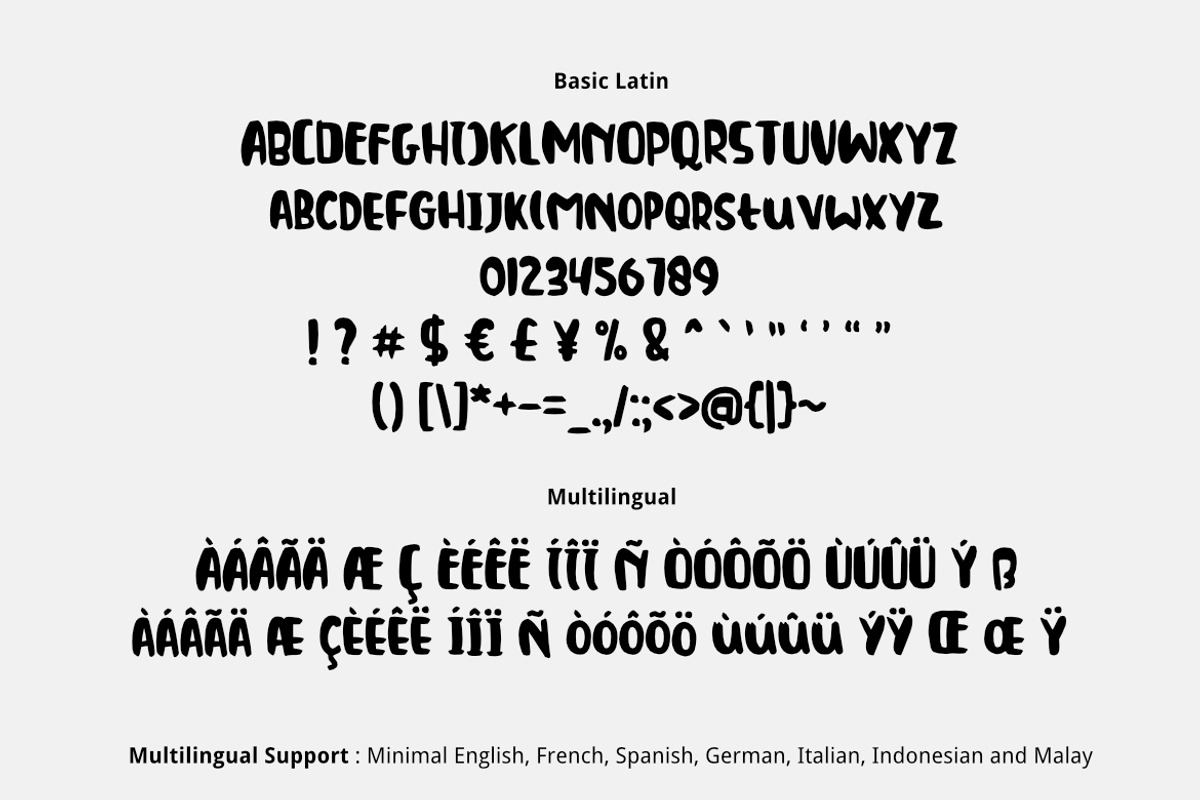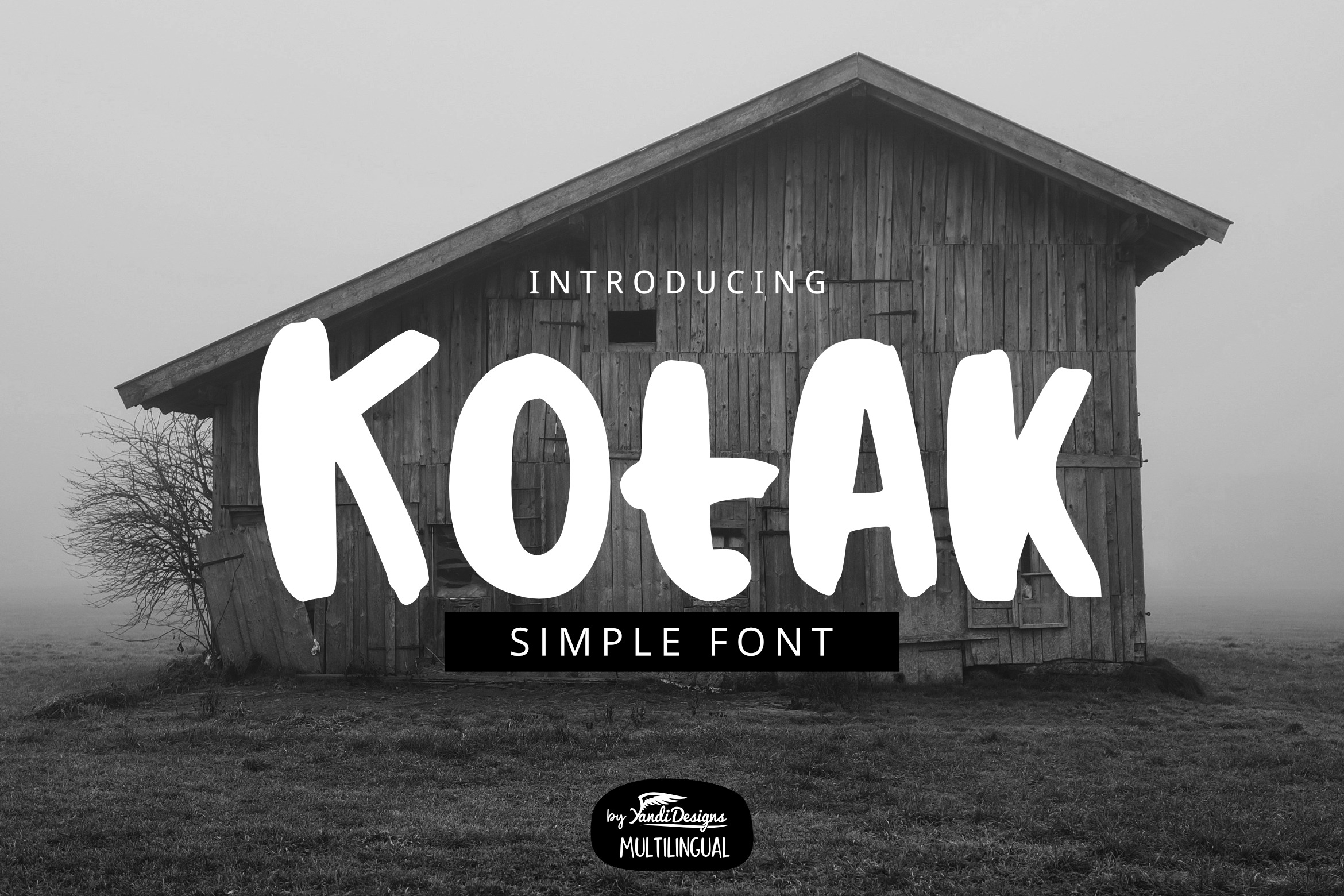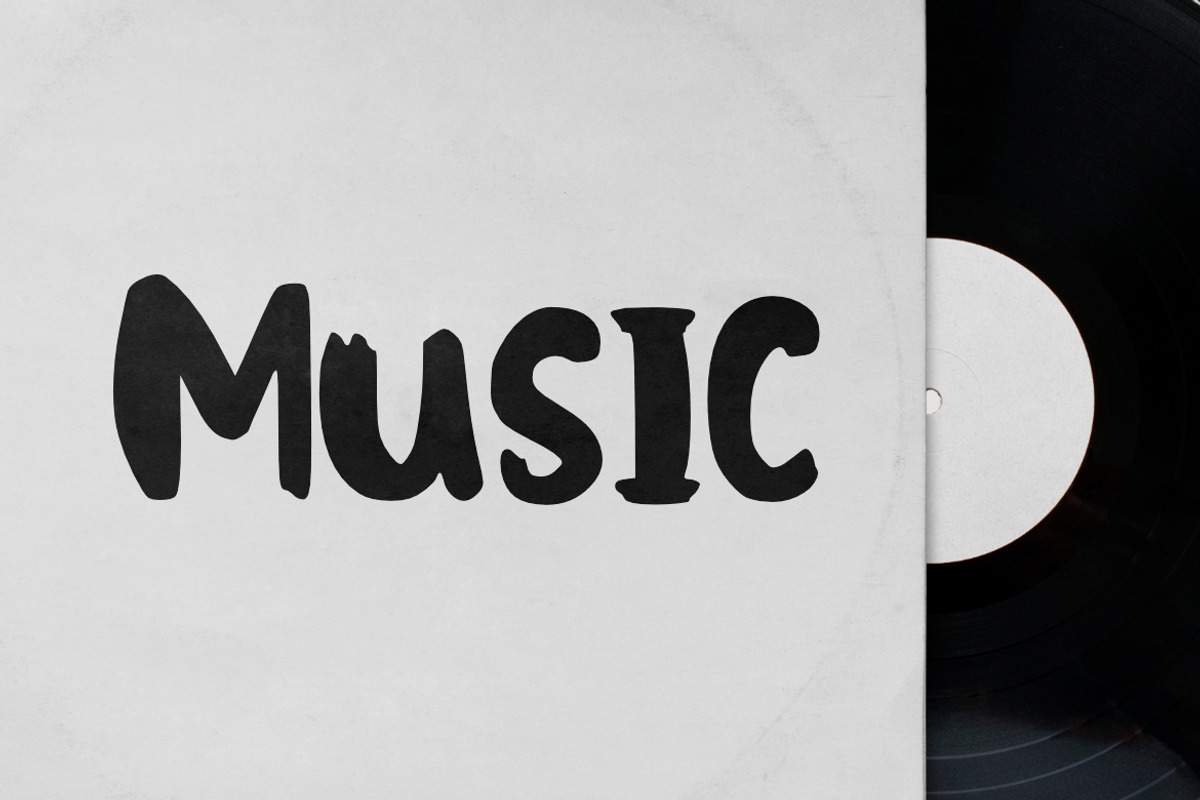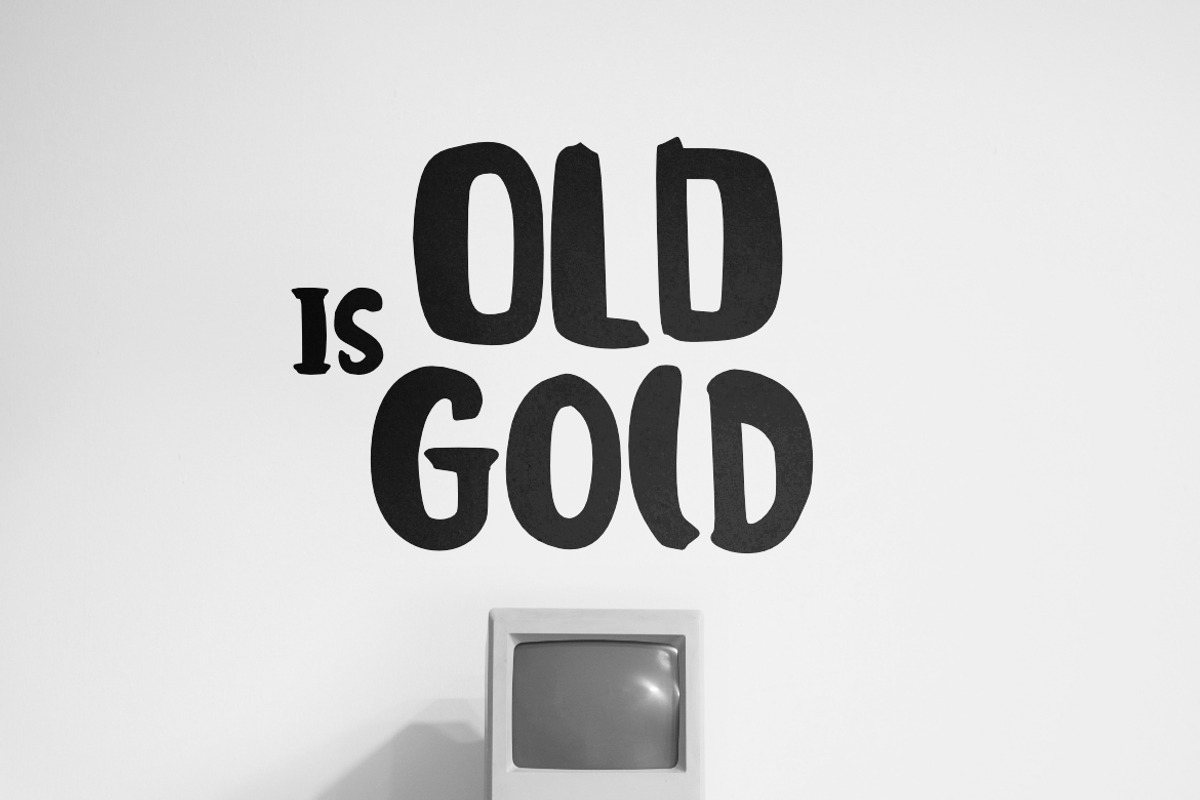
Kotak Font
Kotak is simple multipurpose handmade brush font script, suitable for many project children book, quotes, logo , heading , title etc.
Basic Latin (Standard English character , number, symbol) Multilingual Support (minimal English, French, Spanish, German, Italian, Indonesian, Malay)